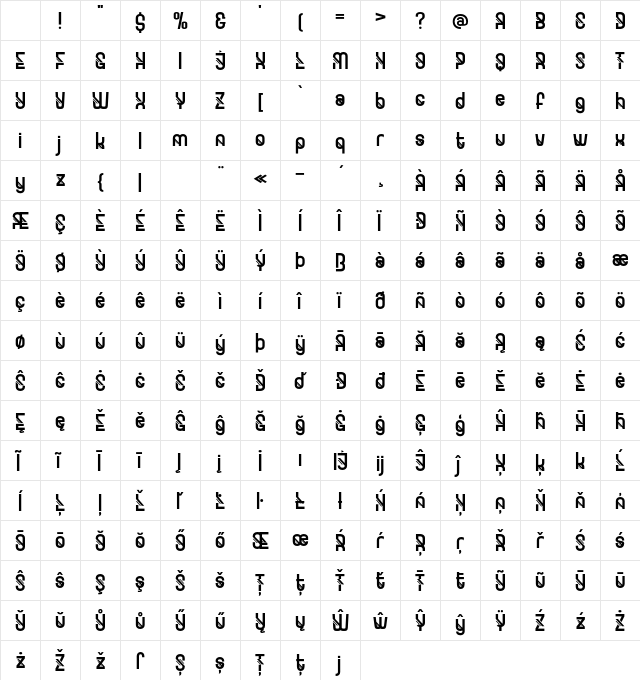
Complete GOXAC-Variation Regular glyph index. Displaying only characters natively supported by GOXAC-Variation Regular font.
GOXAC-Variation is a composed and adaptable typeface that performs quietly and consistently across a wide range of design contexts.